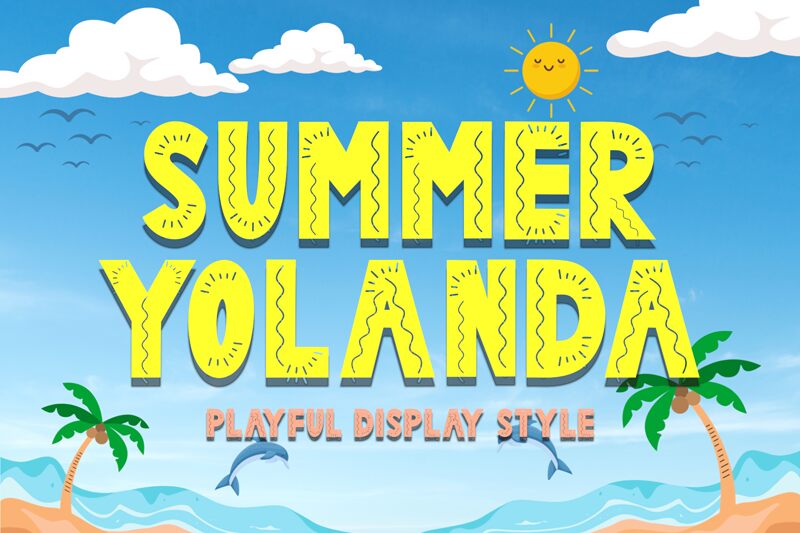
Summer Yolanda font designed by Yoga Letter is an energetic decorative font that is perfect for summer-themed designs. Its chunky and vibrant letterforms will infuse a cheerful atmosphere to your projects. The font builds on a modern aesthetic that is suitable for contemporary applications. Whether it’s branding or eye-catching social media post design, the font can serve as a focal point or a nice addition to the overall look.
The Summer Yolanda font can be used for social media posts, magazine or journal cover designs, book covers, advertisements, website design, mobile apps, infographics, and branding. Additional design uses for packaging, invitations, and other personal uses are also encouraged. One capital and lowercase letter set are available with this font along with numerals and some punctuation marks as well.